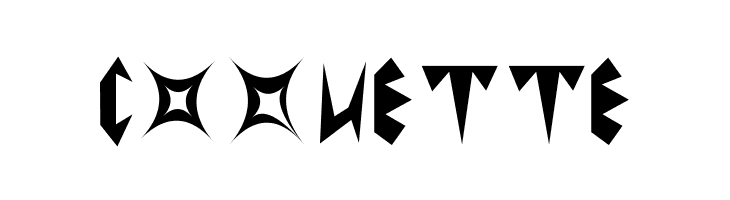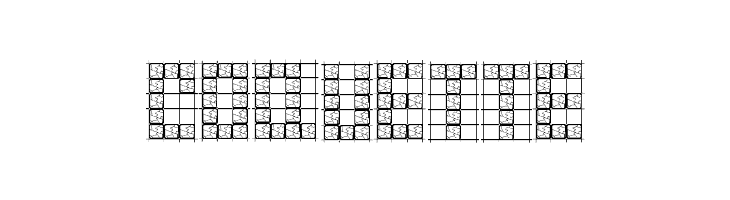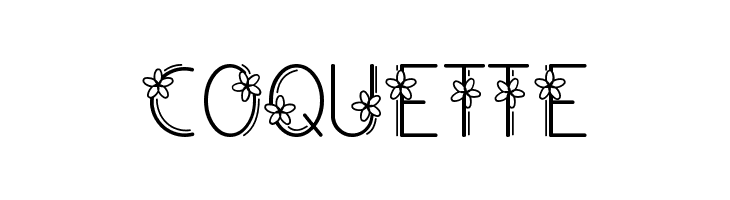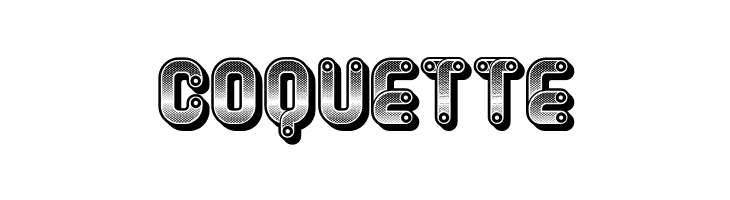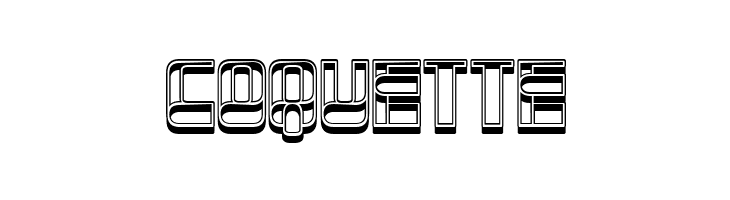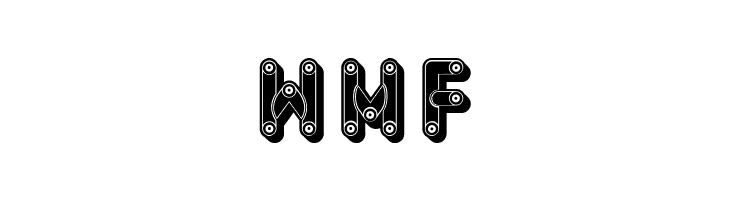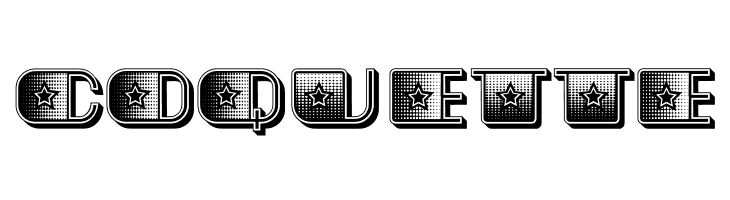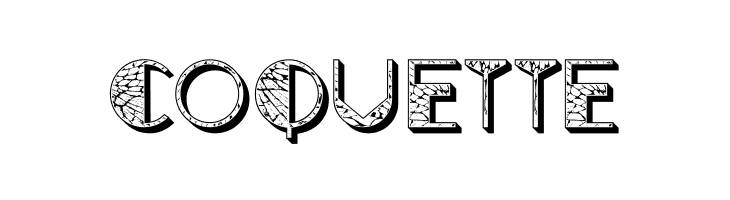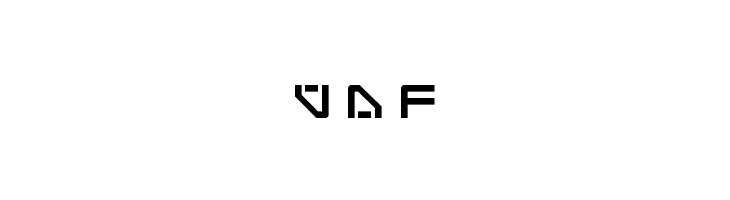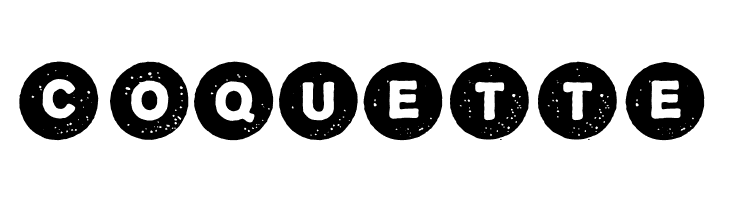
A decorative font with a nautical theme and intricate line work.
A decorative font with geometric patterns and framed characters.
A playful, decorative font with star-adorned uppercase letters and bold, rounded characters.
Ornate illustrated font with underwater sea life motifs.
A bold, abstract font with overlapping oval shapes, inspired by organic patterns.
A tree-inspired font with angular, branch-like characters.
A decorative font with geometric patterns and a futuristic style.
An abstract, geometric font with fragmented characters and a modern art style.
A whimsical, decorative script font with floral embellishments.
A bold, decorative font with intricate floral patterns within each character.
A bold, decorative font with geometric patterns and a three-dimensional effect.
A playful, star-adorned font with bold, rounded characters.
A playful, hand-drawn font with irregular edges and textured strokes.
A bold, humorous font with exaggerated anatomical shapes and playful design.
A pictogram font with peace and remembrance-themed illustrations.
An artistic, hand-drawn font with swirling, dynamic strokes.
A bold, three-dimensional font with geometric shapes and clean lines.
An ornate and decorative font with intricate swirls and embellishments.
A decorative font with intricate swirls and artistic embellishments.
A decorative, grid-based font with intricate patterns and textures.
A bold, decorative font with an industrial, mechanical aesthetic.
A decorative font with floral motifs integrated into each character.
A geometric, futuristic font with sharp angles and clean lines.